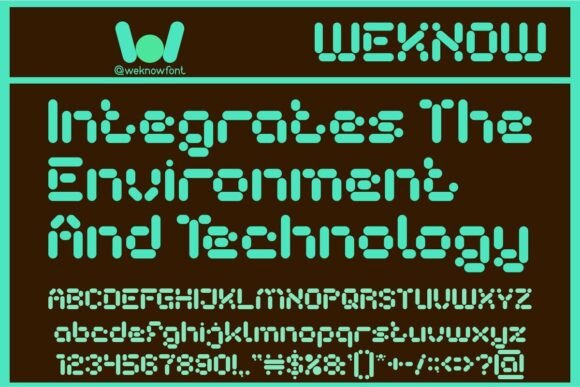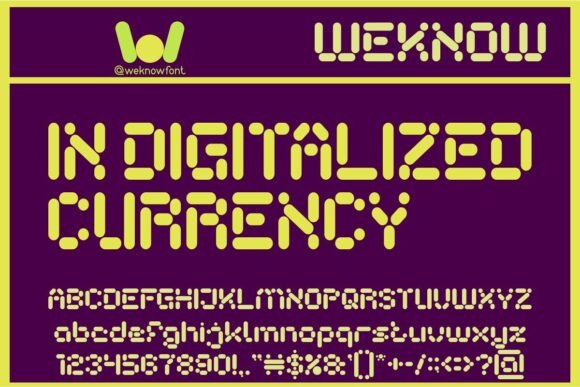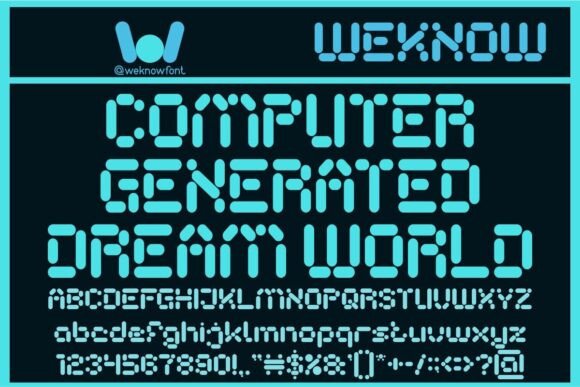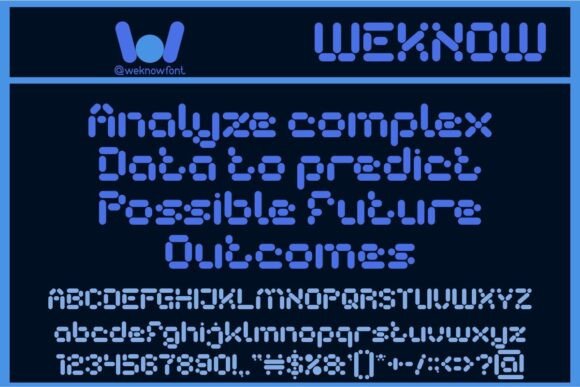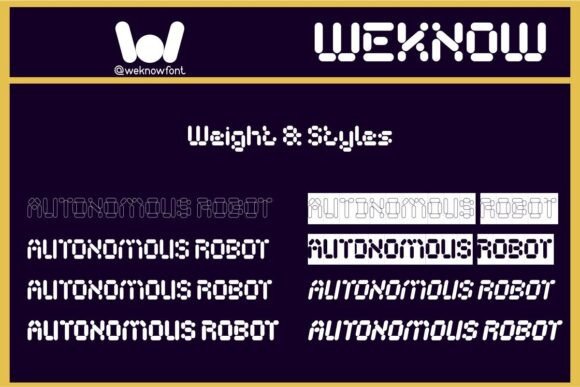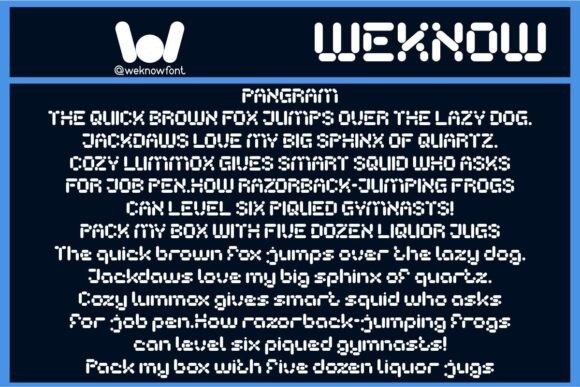
Introducing Autonomous Robot Font: A Blast from the Past and a Glimpse into the Future
Are you ready to experience a font that combines the nostalgia of retro tech with the excitement of modern futurism? Look no further than the Autonomous Robot font. This unique, dot-matrix design is perfect for designers and crafters looking to add a touch of cool, high-tech robotics to their projects.
The Design
The Autonomous Robot font features rounded, bold edges that make a statement. Its techno-sci-fi style nods towards the era of retro tech, evoking memories of old computer systems and futuristic visions of the past. At the same time, its modern design elements give it a fresh, forward-thinking feel that’s perfect for projects that require a glimpse into the future.
Patterns and Style
One of the standout features of the Autonomous Robot font is the patterns formed by its dot-matrix design. The font’s unique style creates a mesmerizing effect, perfect for capturing the essence of high-tech robotics. Whether you’re looking to create a bold headline or add texture to your design, Autonomous Robot font is sure to impress.
The Autonomous Robot font is versatile and can be used in a wide range of projects. Here are some ideas to get you started:
- Magazine or Book Covers: Make a statement with a bold, eye-catching headline that sets the tone for your publication.
- Corporate Branding: Add a touch of modern futurism to your company’s image with a unique and memorable font.
- Music, Movie, or Gaming Projects: Create a captivating visual identity for your project with a font that’s out of this world.
- Websites: Use Autonomous Robot font as a striking headline or title element to grab visitors’ attention.
- Comic Strips: Add a playful touch to your comic strip with a font that’s fun and energetic.
- Trendy Apparel: Create a bold, eye-catching logo for your clothing brand or design.
- Social Media: Transform your Instagram feed or YouTube channel with the distinct flair of Autonomous Robot font.
Why Choose Autonomous Robot Font?
So why choose Autonomous Robot font for your next project? Here are just a few reasons:
- Unique Design: Autonomous Robot font is unlike any other font on the market. Its dot-matrix design and techno-sci-fi style make it a standout.
- Versatility: This font can be used in a wide range of projects, from corporate branding to creative endeavors.
- Attention-Grabbing: Autonomous Robot font is designed to grab attention. Its bold, rounded edges and mesmerizing patterns make it perfect for headlines, titles, and logos.
In conclusion, the Autonomous Robot font is a captivating display font that’s perfect for designers and crafters looking to add a touch of cool, high-tech robotics to their projects. With its unique design, versatility, and attention-grabbing style, it’s sure to be a hit in a wide range of applications. So why wait? Dive into a universe of possibilities with Autonomous Robot font and experience a blast from the past and a glimpse into the future.